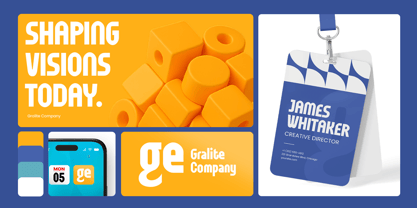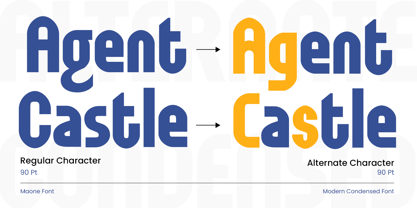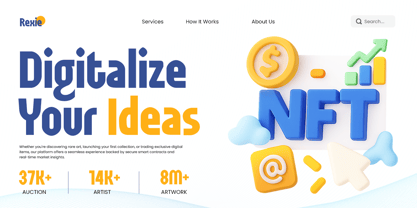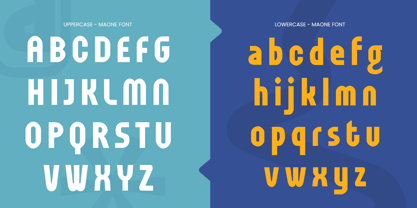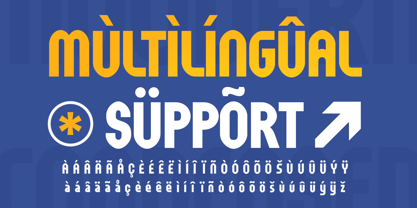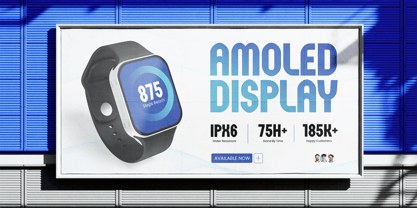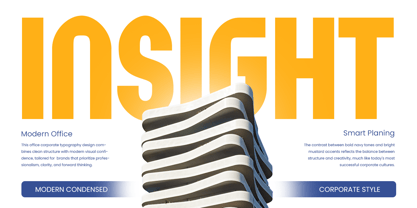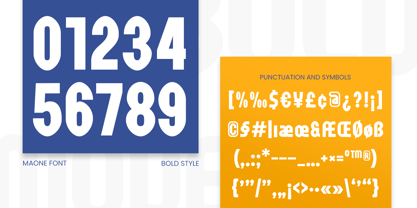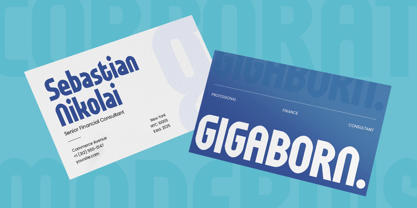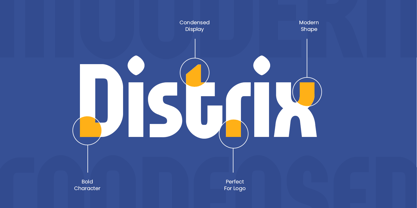
Maone is a modern condensed font crafted to make a bold impression in tight spaces. With sleek geometry and strong vertical proportions, it's perfect for branding, editorial headlines, posters, logos, and digital interfaces that need a clean and assertive typographic presence.
Whether you're building a brand identity, designing packaging, or creating standout visuals, Maone delivers clarity and strength with its sharp condensed look. Its contemporary form helps you create layouts that are both space-efficient and highly legible.
Choose Maone to bring modern sophistication and bold energy to your design work.
Maone – Modern Condensed Font Features
Condensed structure for efficient layout
Ideal for headlines, branding, and logos
Punctuation, numbers, and symbols included
Uppercase and lowercase letters
OpenType features included
Make a strong, modern statement with Maone – built for space, style, and standout branding. 🏙️📣